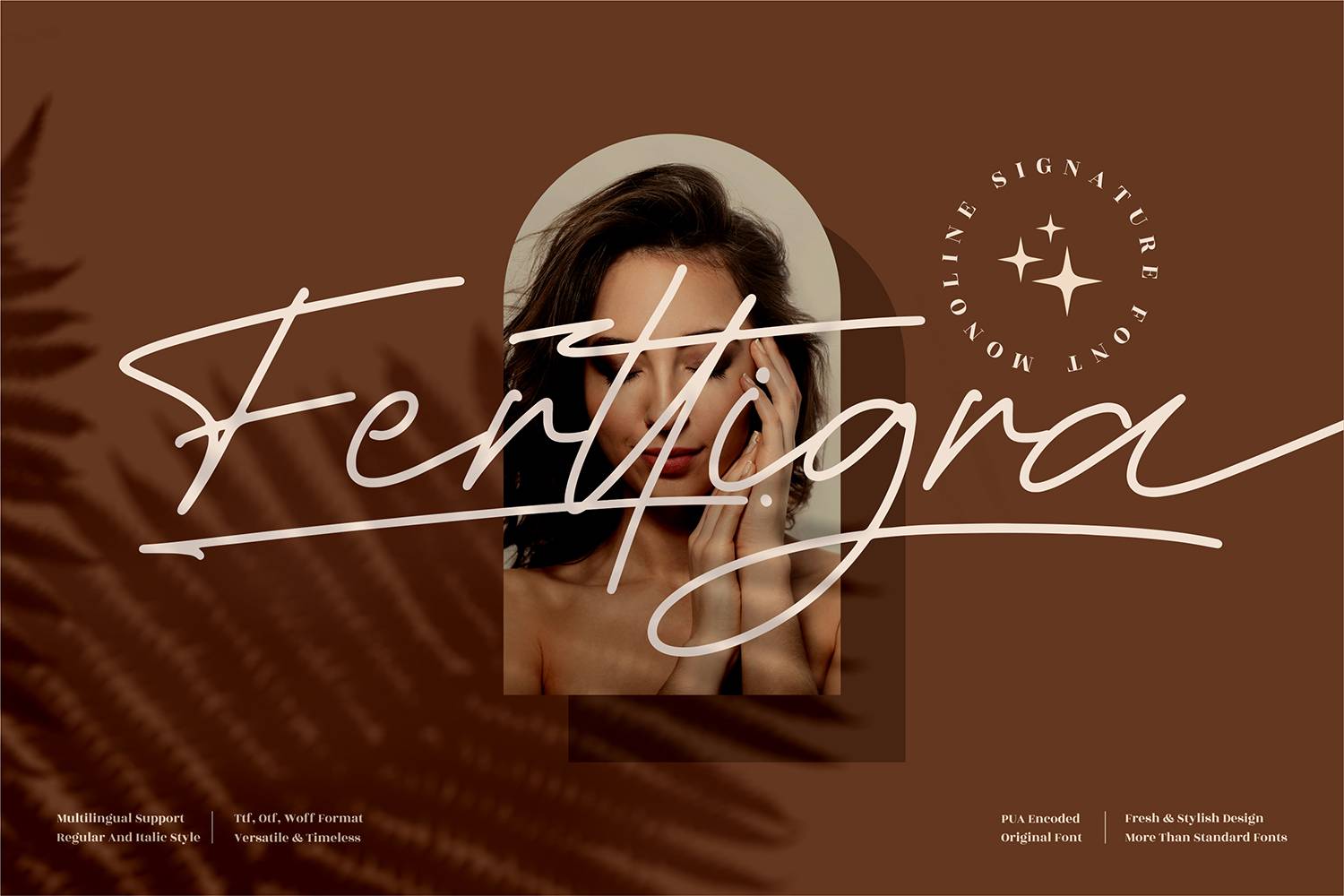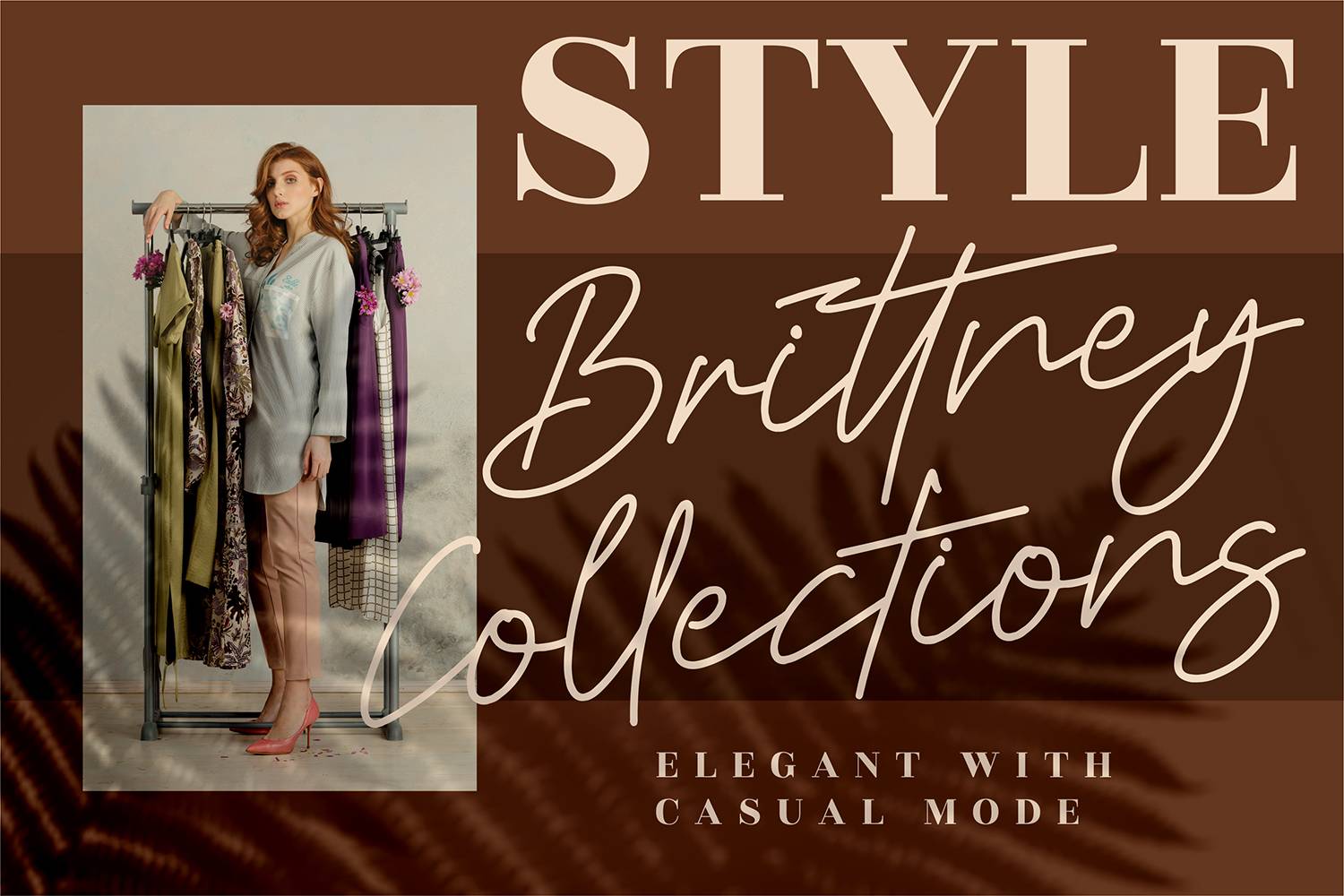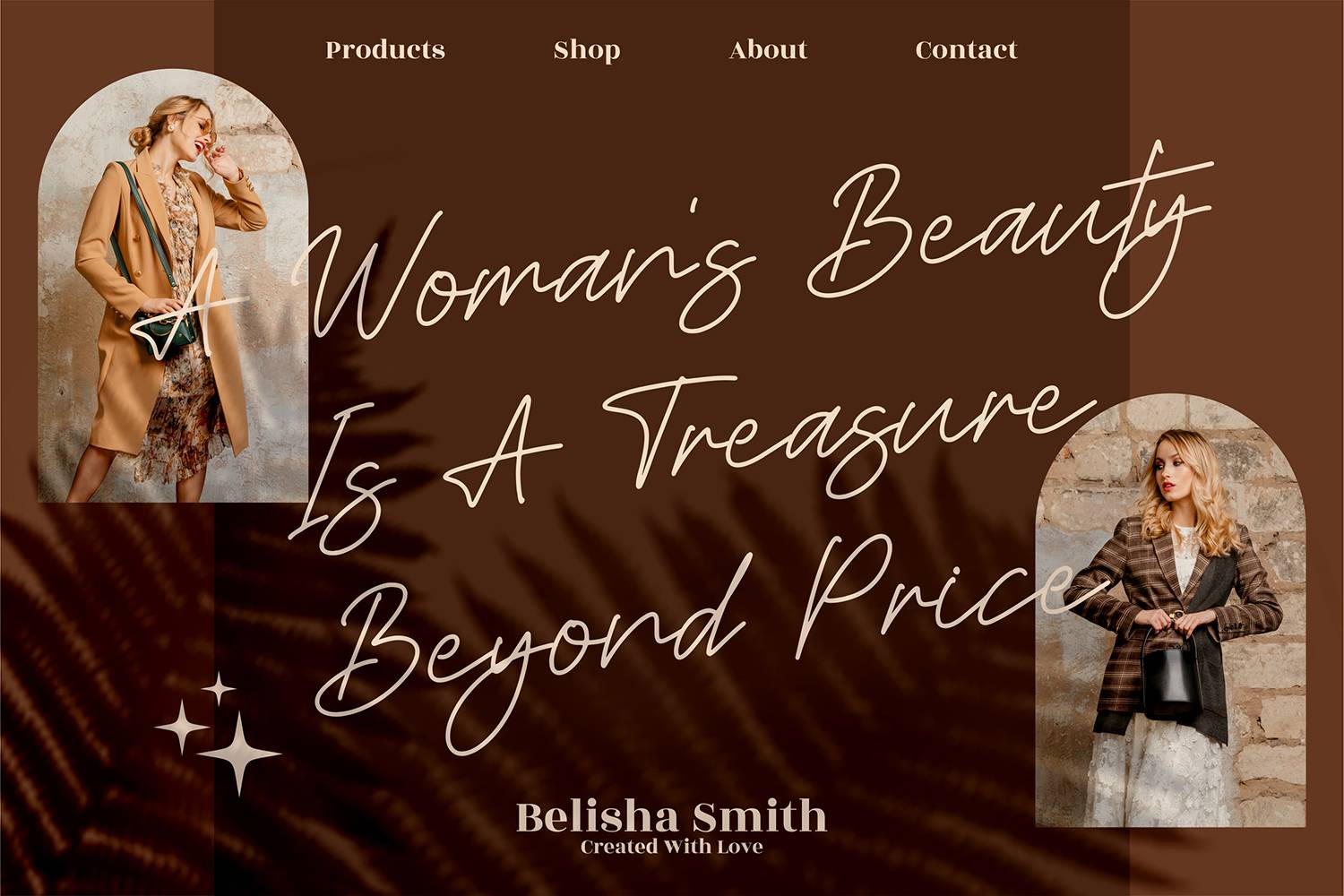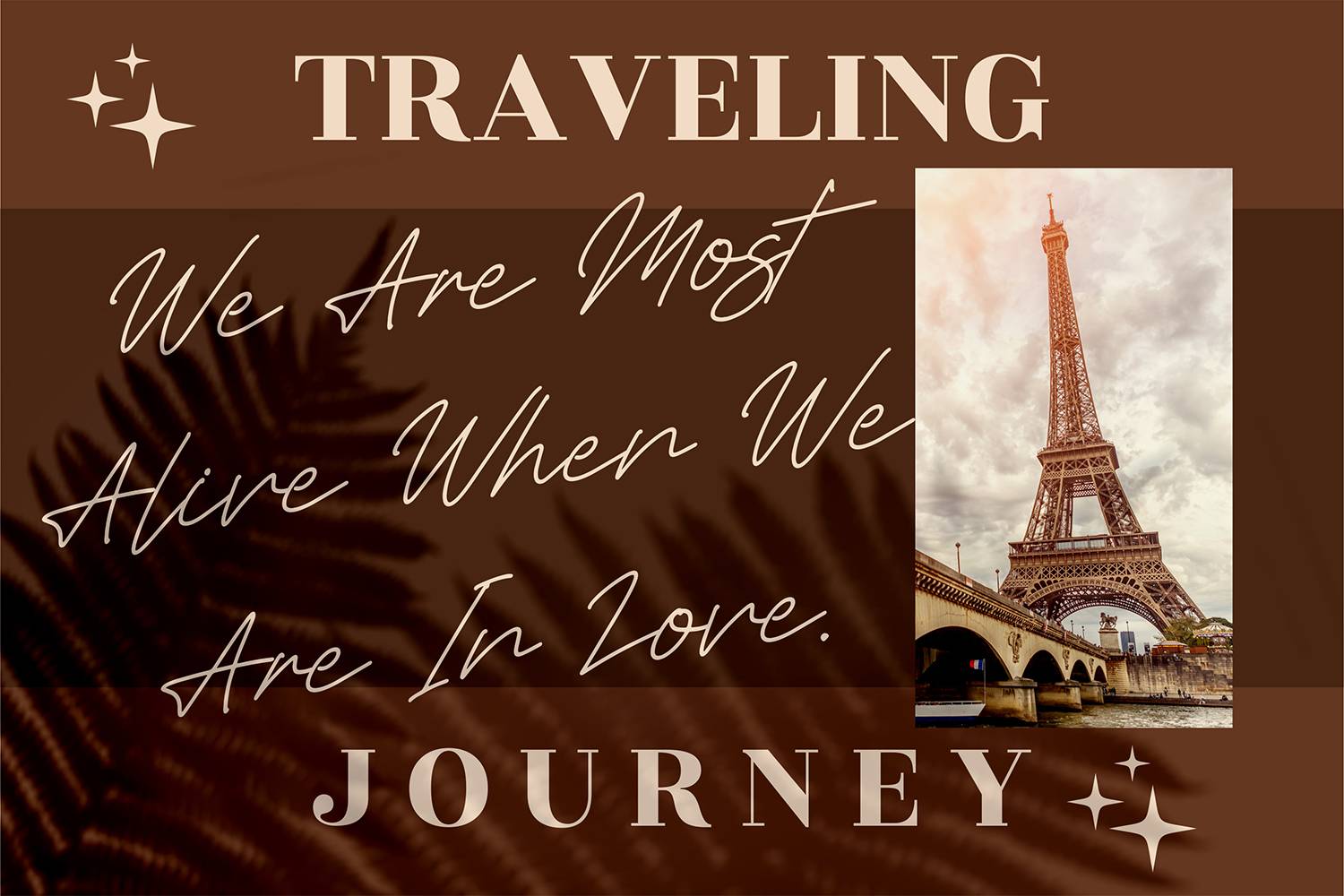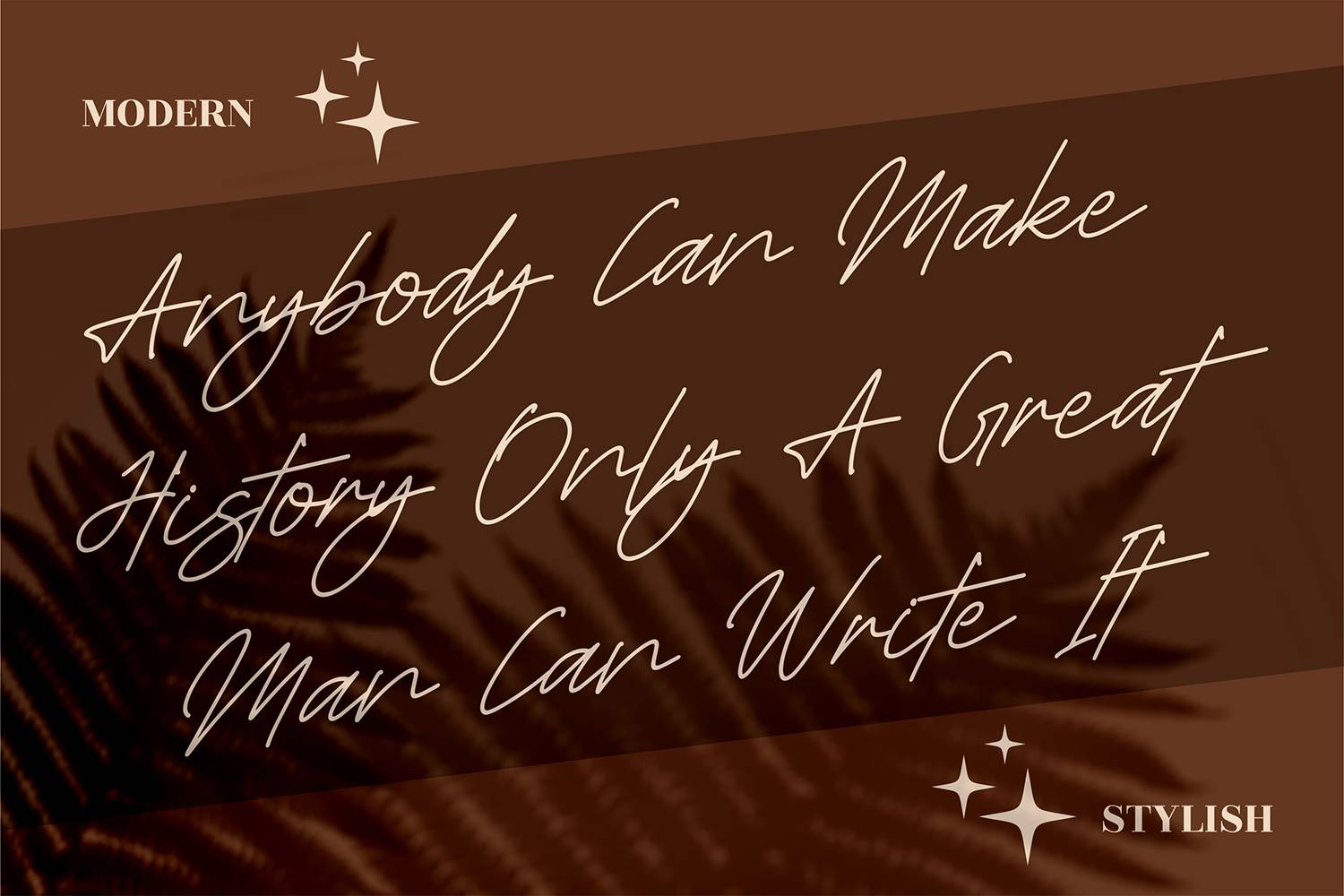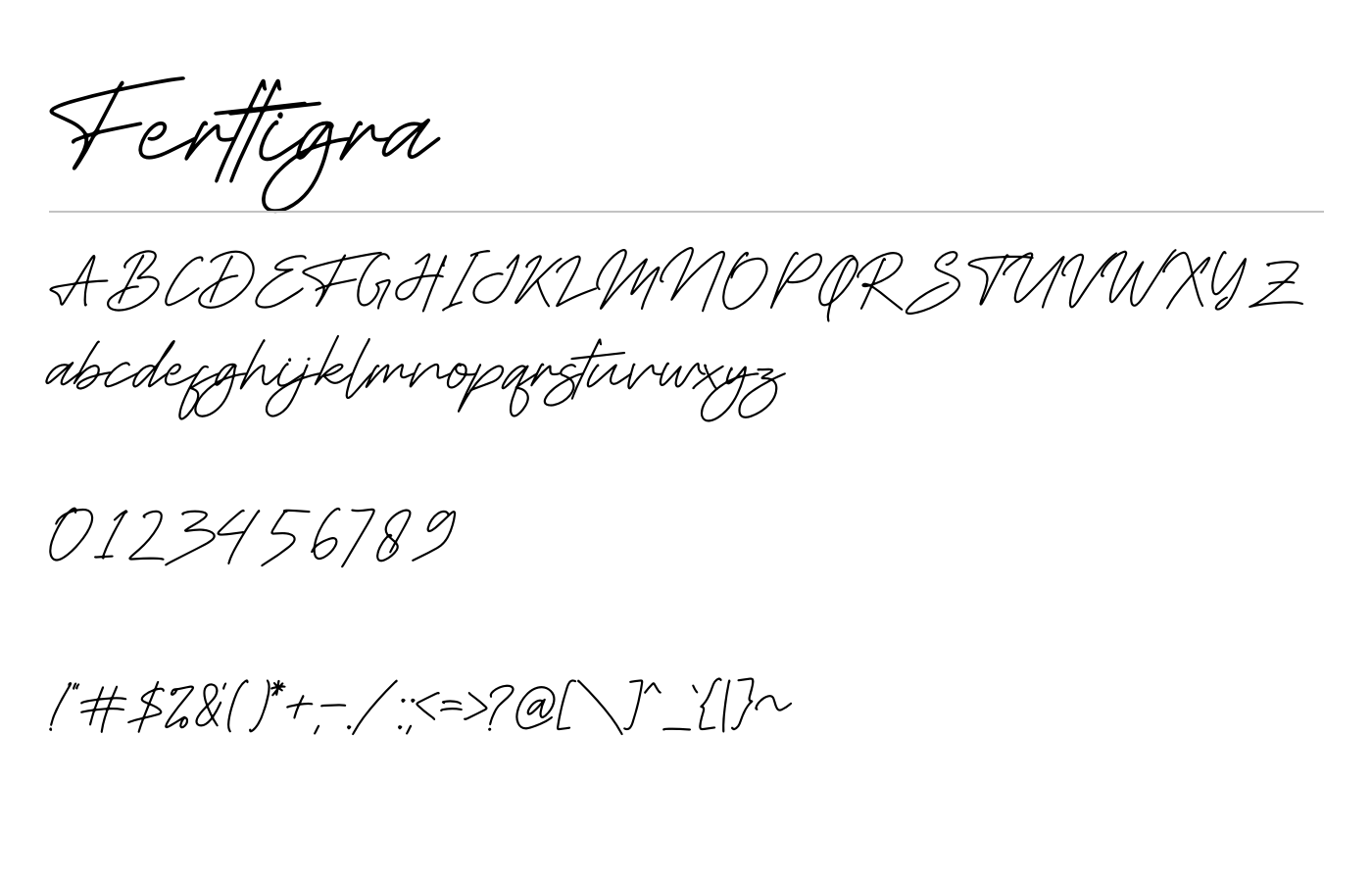
Ferttigra is an elegant handwritten script font with a delicate, flowing style that mimics natural penmanship. Its slender, slightly slanted letterforms create a personal and sophisticated feel, making it ideal for invitations, branding, and creative projects that seek a refined yet approachable touch. This font works best for headlines and decorative text where a graceful, artistic impression is desired.
Ferttigra Font